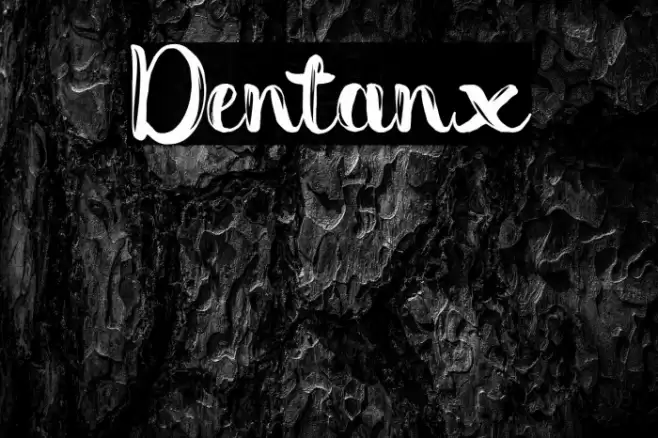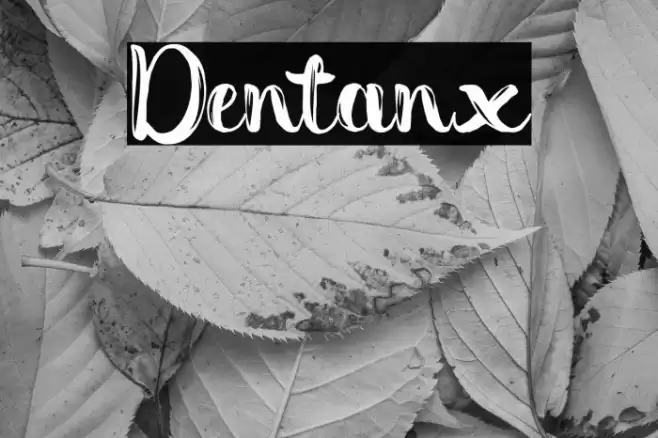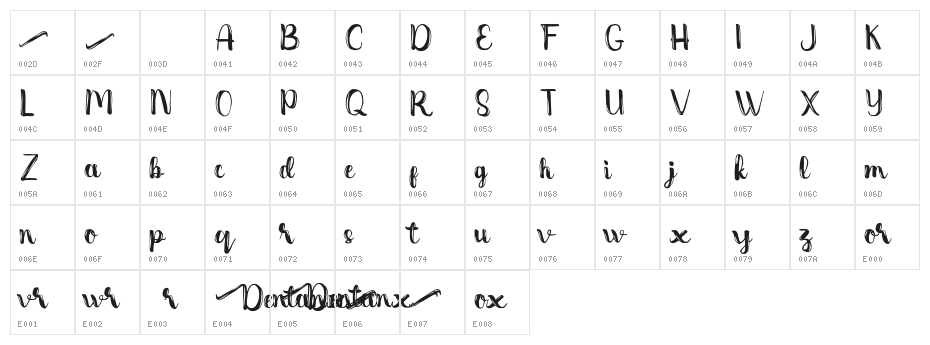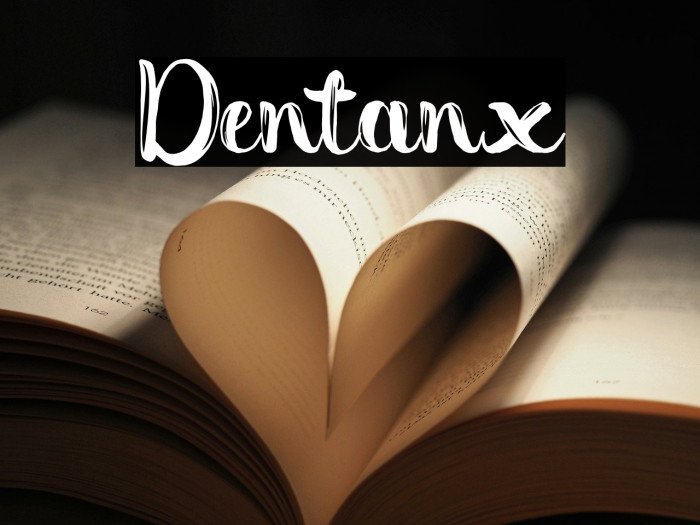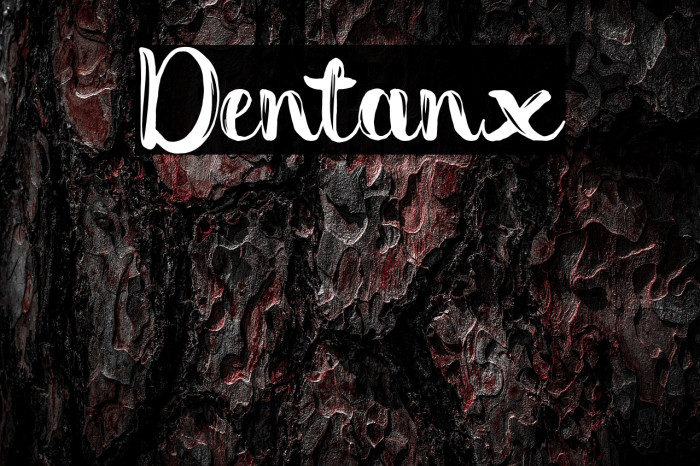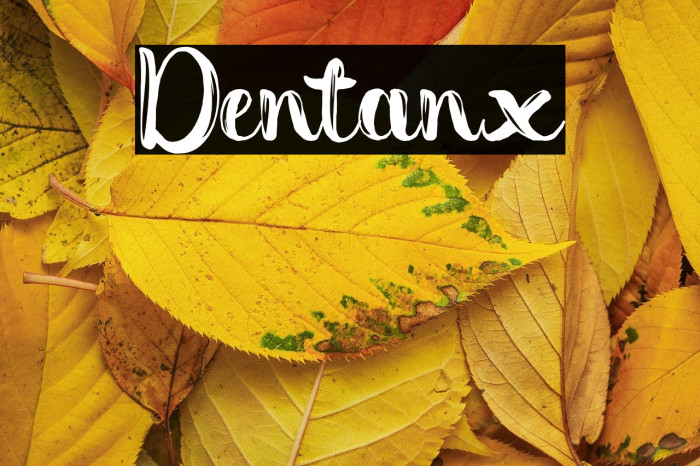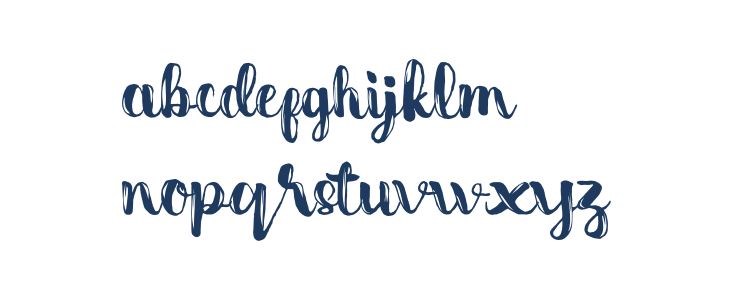
Dentanx Font
Dentanx Description
This font features a dynamic and expressive script style, characterized by its flowing and interconnected letterforms. The uppercase letters exhibit a bold and confident presence, while the lowercase letters maintain a graceful and fluid appearance. The strokes vary in thickness, adding a sense of movement and energy to the text. The overall design is reminiscent of hand-drawn calligraphy, with a modern twist that makes it suitable for contemporary applications. The font's playful yet elegant nature makes it versatile for various creative projects.
A dynamic script font with flowing, interconnected letterforms and varying stroke thickness from Regular fonts.
- Proposed Projects: Ideal for branding, invitations, greeting cards, and artistic projects that require a personal touch.
- Use Case: Logos, Invitations, Artistic projects